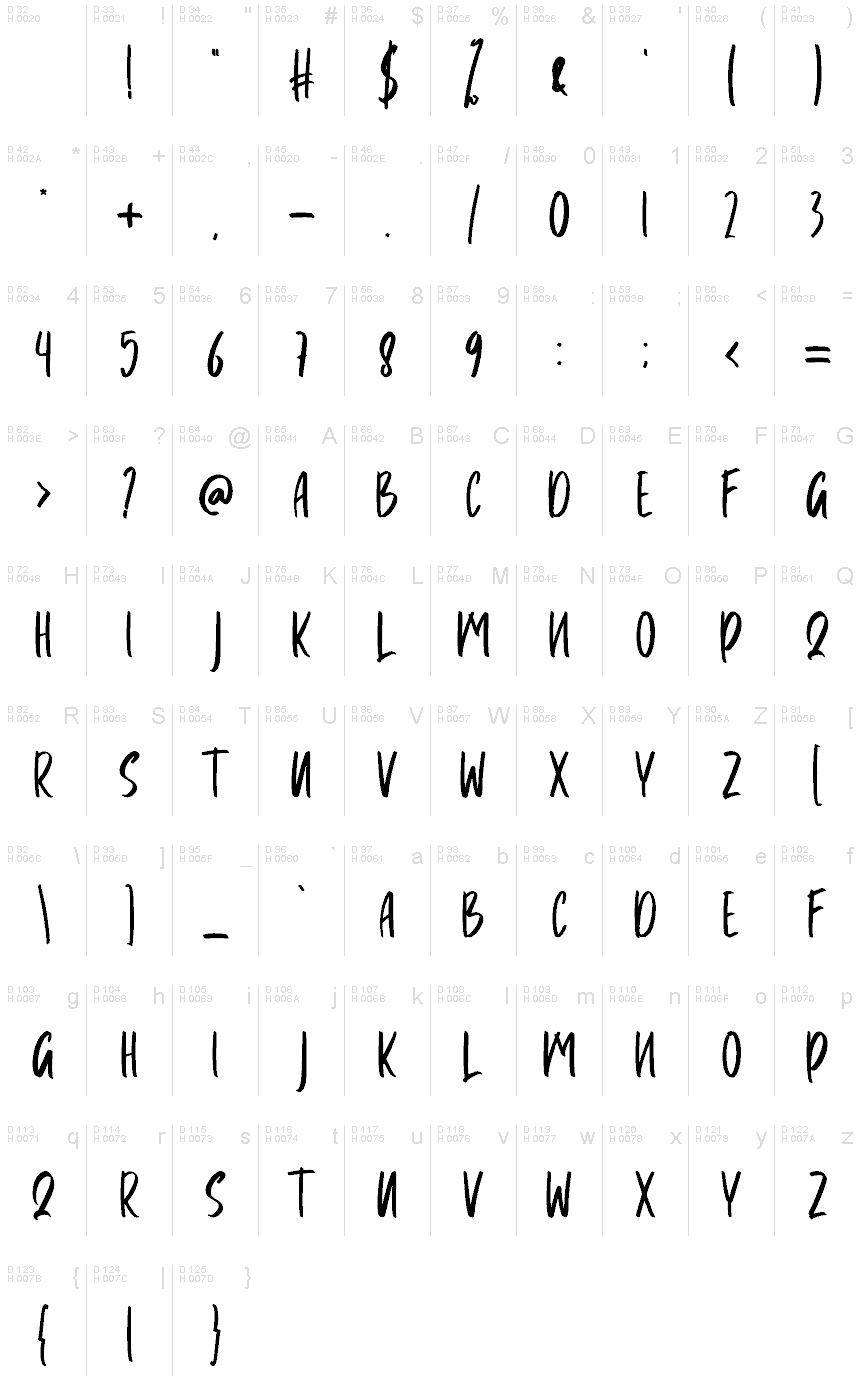
Poraly
Poraly font by Skiiller Studio is a free handwritten font with a casual style, modern feel, and expressive character. Jump into the energetic rhythm of the condensed letters that make everything look stylish and simple.